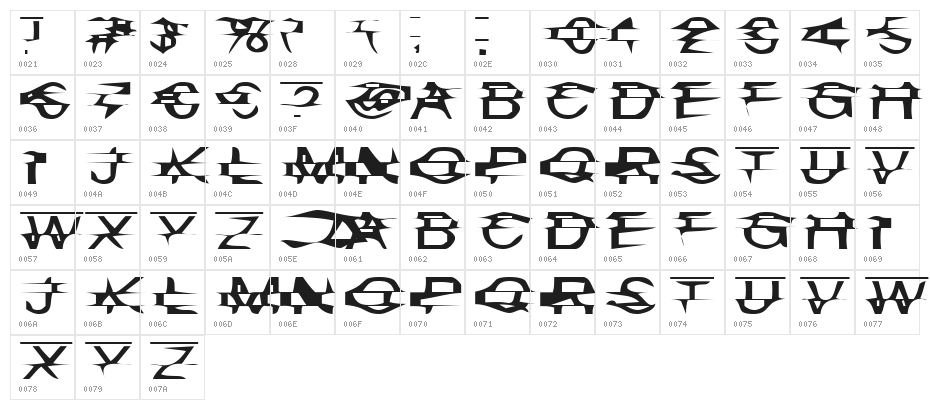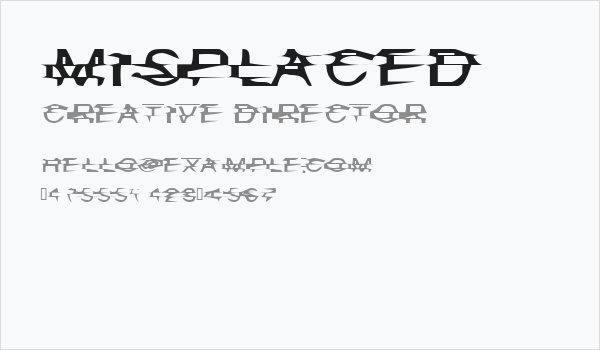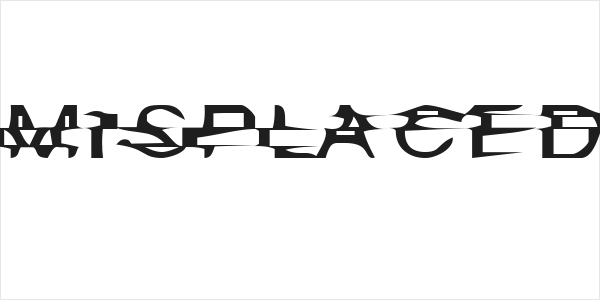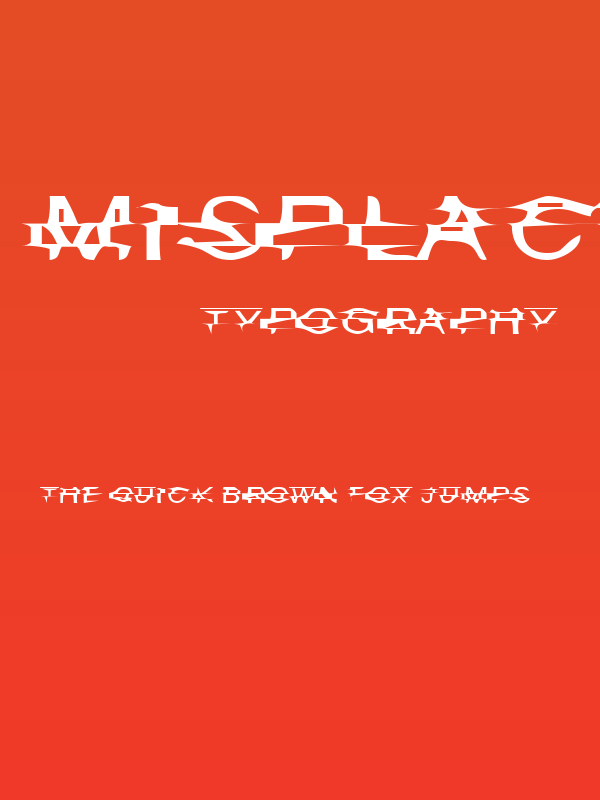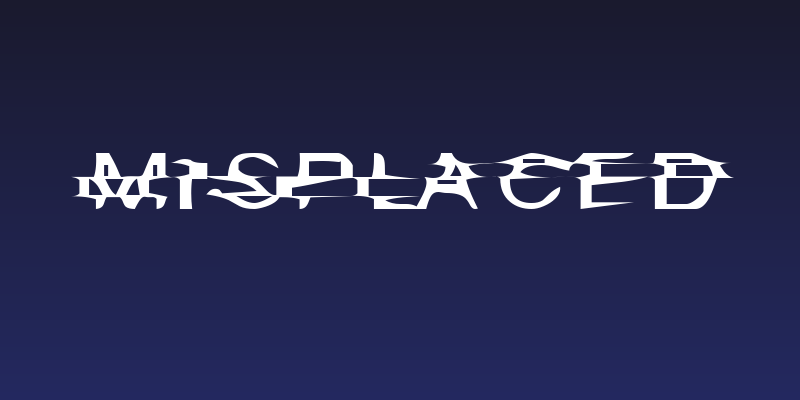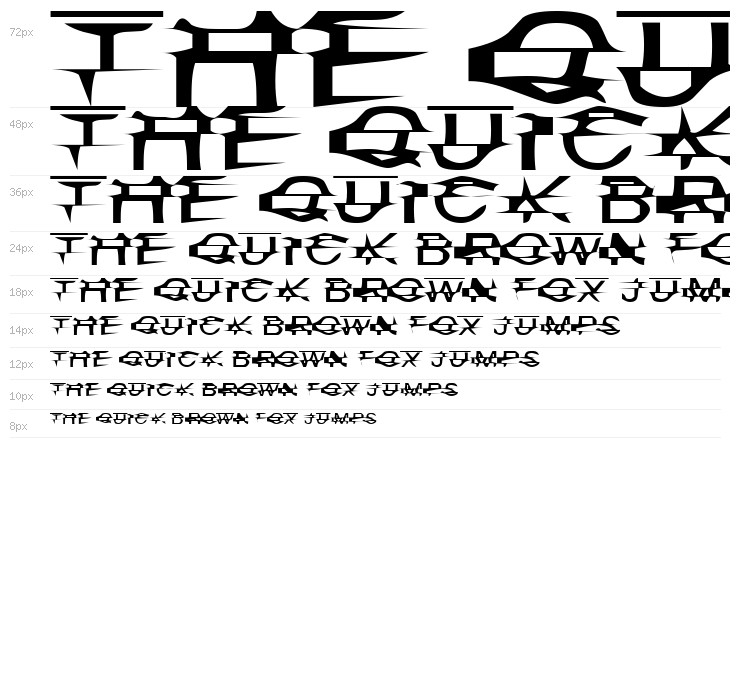
Misplaced Font
| 全体的なスタイル | Modern, Edgy, Disruptive |
| 用途 | Logos, Headlines, Artistic Projects |
| おすすめプロジェクト | Ideal for digital art, album covers, posters, and projects that embrace a modern, edgy aesthetic. |